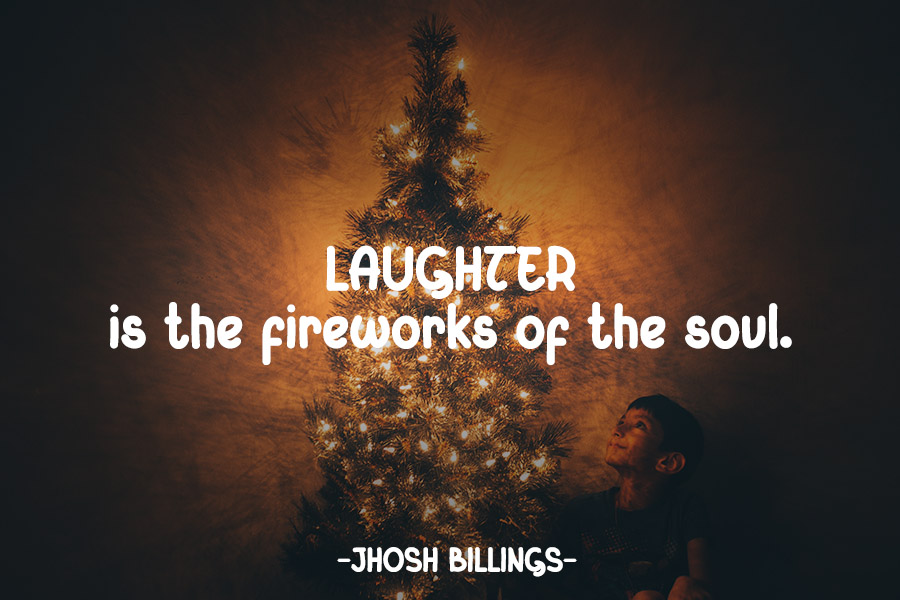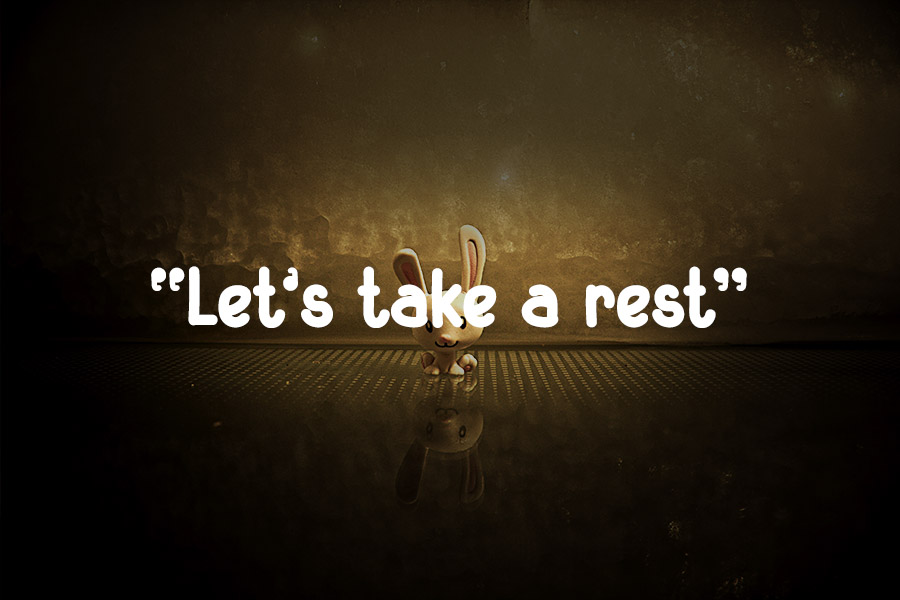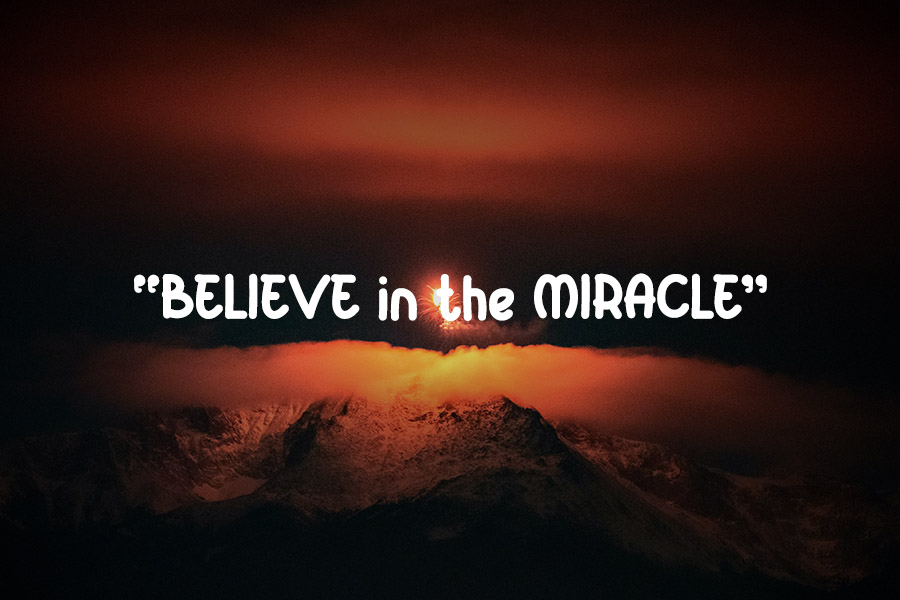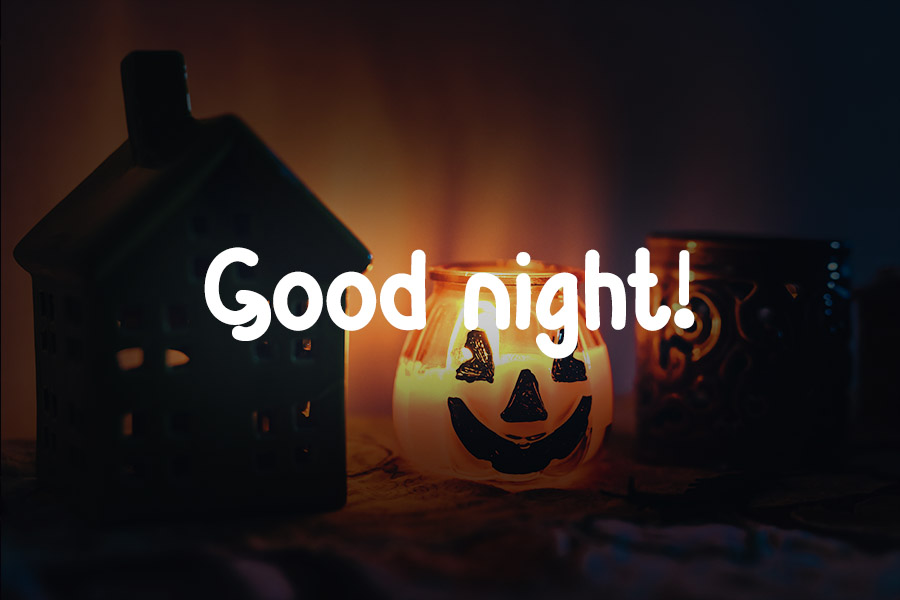
Sparkling Glow Display Font
This is a cute and friendly display font. It is defined by simple characters and is perfect for fashion branding or editorial designs. Add it confidently to your projects, and you will love the results.